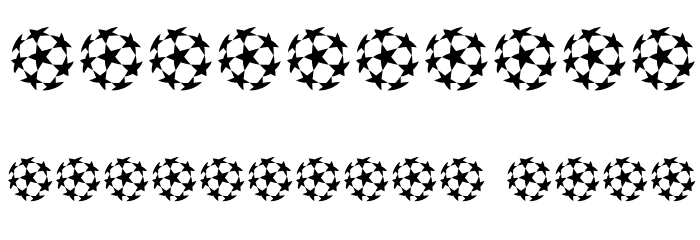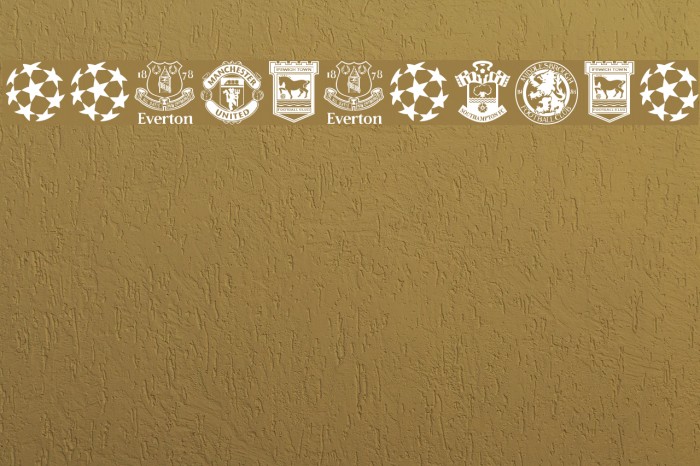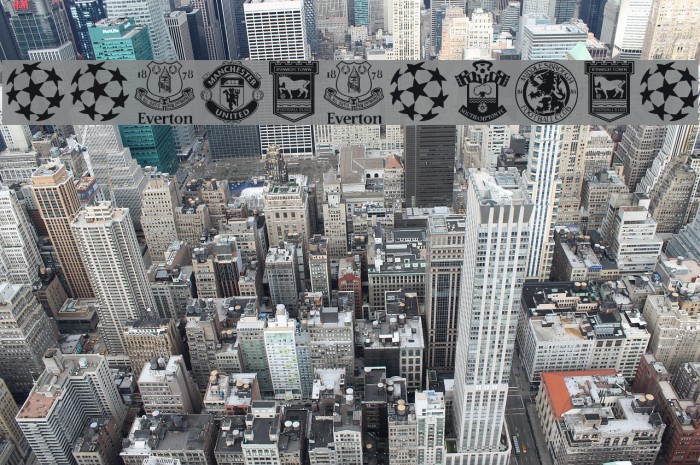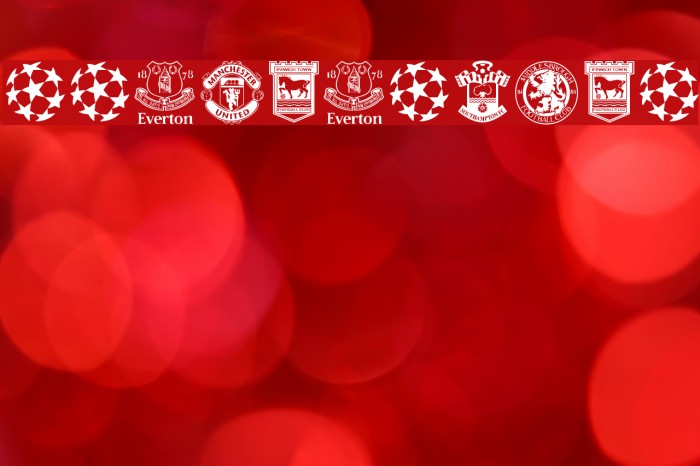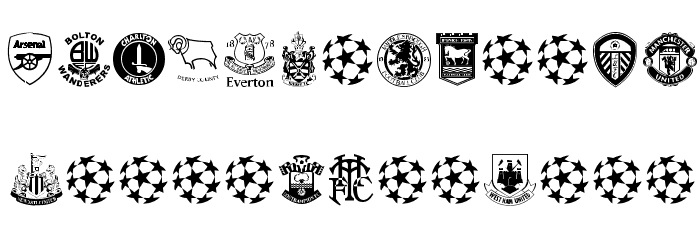
premiership Font
premiership Description
This image contains a collection of football (soccer) club logos and related emblems, arranged in rows and separated by repeated star-patterned football icons. There is no consistent typeface or font present, as the image is composed of various graphic logos and symbols rather than a unified set of letterforms.